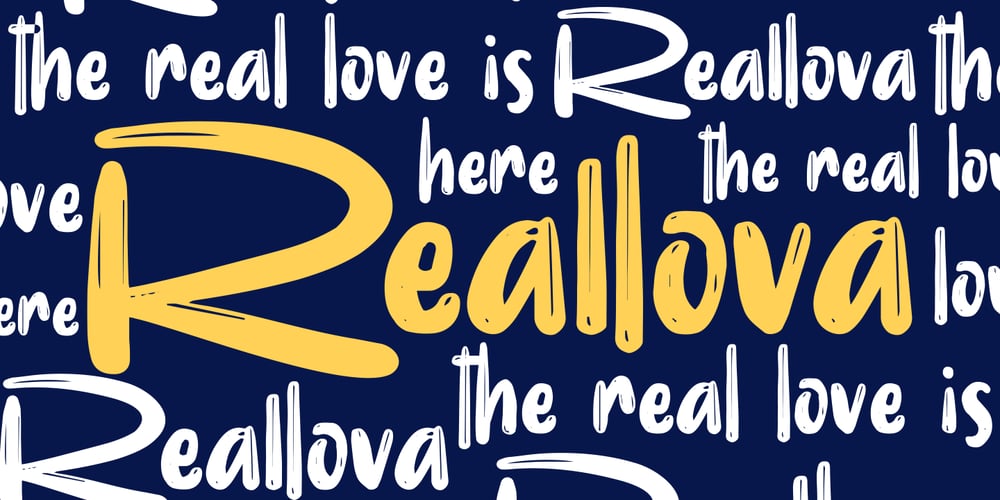
Reallova Font Family was designed by Risman Ginarwan and published by Garisman Studio. Reallova contains 1 styles and family package options. The name Reallova comes from the idea of true love. Love your great work! Captivatingly display, Reallova provides a bold touch, lots of fun, and brush effect that will add a natural look to your design. This font is very suitable for book titles, posters, quotes, t-shirt designs, logo types, templates, banners, flyers, headline titles, and more. Reallova supports in 23 languages, including: Afrikaans Albanian Catalan Croatian Czech Danish Dutch English Estonian Finnish French German Hungarian Icelandic Italian Norwegian Polish Portuguese Slovak Slovenian Spanish Swedish & Zulu. The benefits of Reallova: – Simple installation – Support for MAC and PC – Can be used in a variety of graphic software: Adobe Illustrator, Photosop, Corel Draw, and others. – Natural texture – MültÎlÌñgûål Súppõrt (23 languages) – PUA Encoded – Ligatures